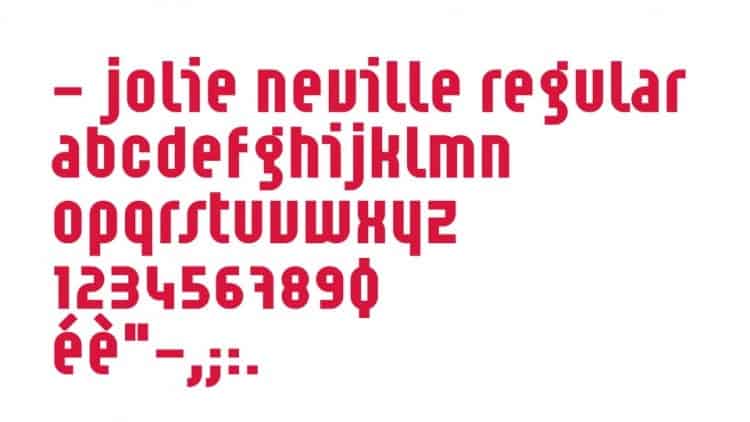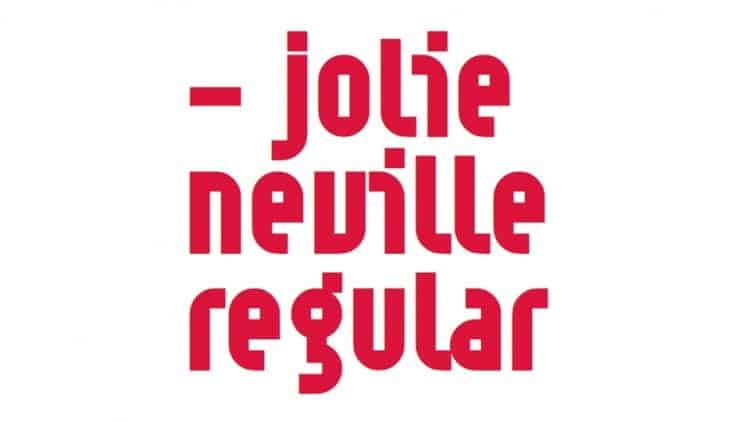
Jolie Neville Display Font is a completely unique and custom font with a Mid Century twist, inspired by vintage and hand painted retro signs. It’s designed and shared by Pierre-Yvon Carnoy. This font is an experimental display typeface, a hommage with formal constraints to 80s and 90s fonts such as Modula by Zuzana Licko, Industria by Neville Brody, FF Rosetta by Max Kisman…